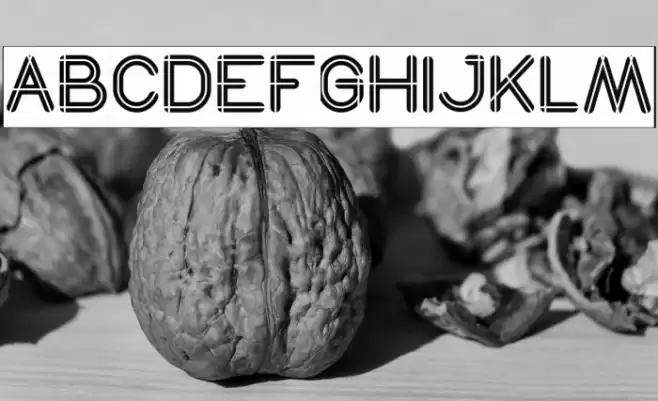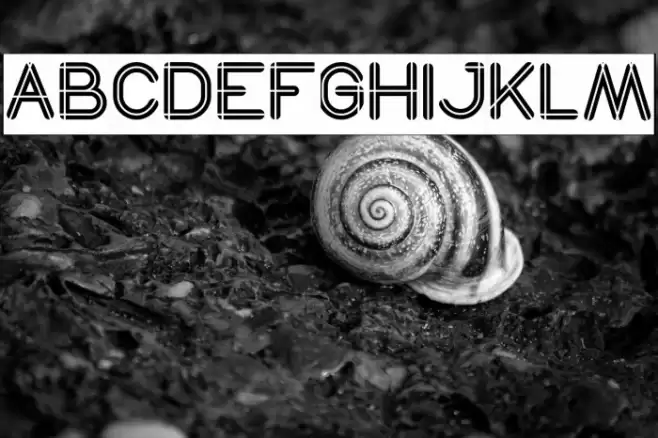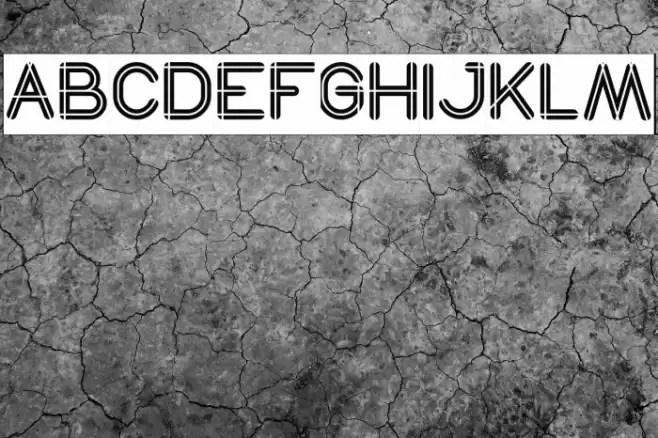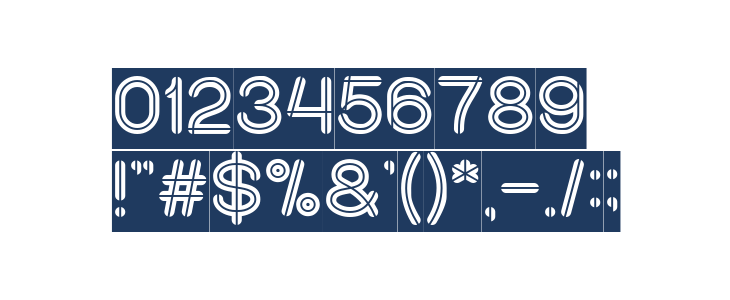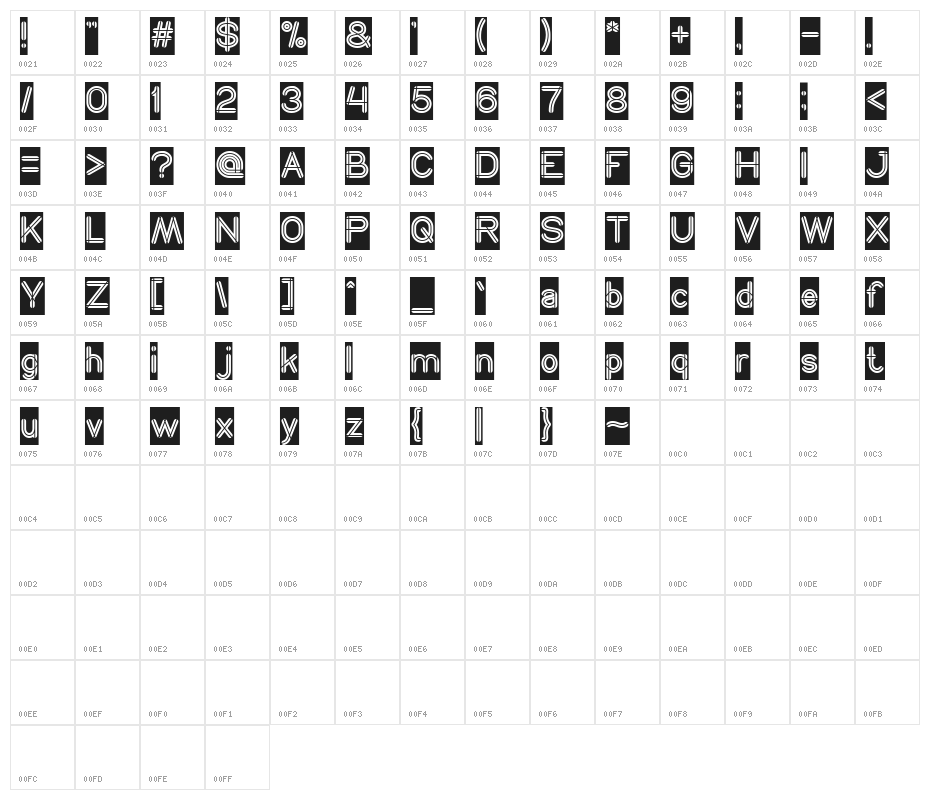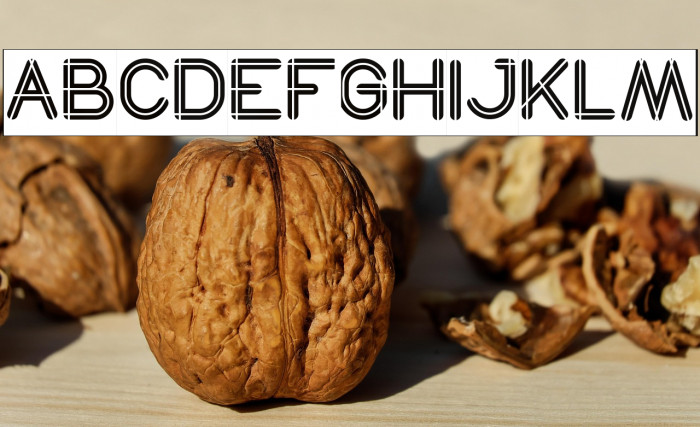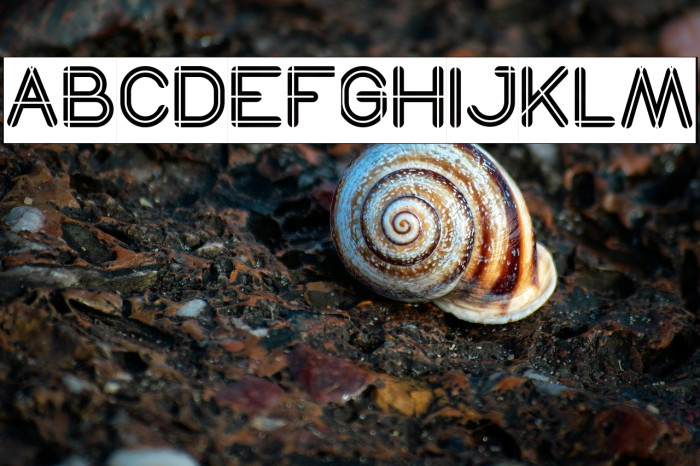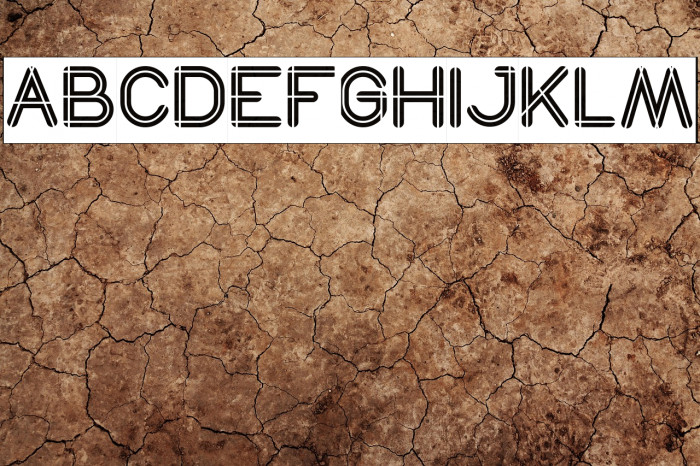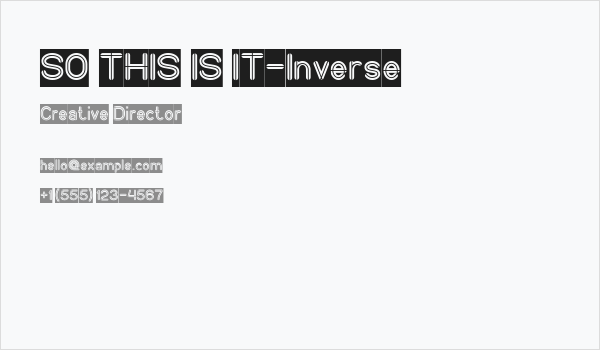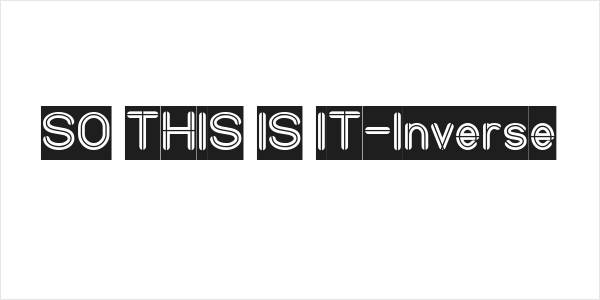
SO THIS IS IT-Inverse Font
SO THIS IS IT-Inverse Description
This font features a bold, geometric design with a distinct double-line style that gives it a modern and futuristic appearance. The characters are constructed with clean, straight lines and rounded edges, creating a harmonious balance between sharpness and smoothness. The uppercase and lowercase letters maintain a consistent height, while the numerals and special characters follow the same design principles, ensuring uniformity across the typeface. The font's unique aesthetic makes it stand out, ideal for projects that require a contemporary and eye-catching look.
A bold, geometric font with a modern double-line style from Uncategorized fonts.
- Font: SO THIS IS IT-Inverse
- Proposed Projects: Ideal for branding, posters, headlines, and digital media where a modern and striking appearance is desired.